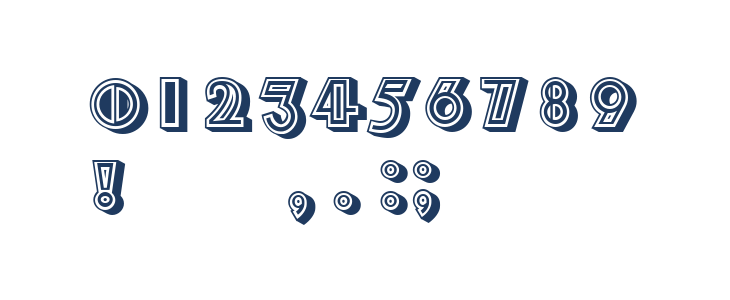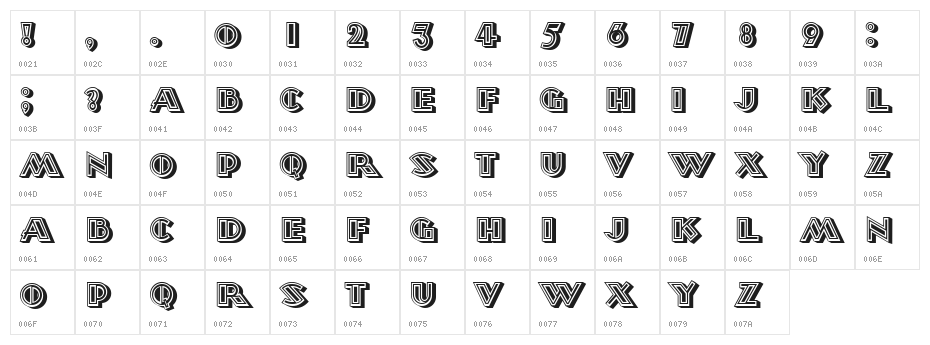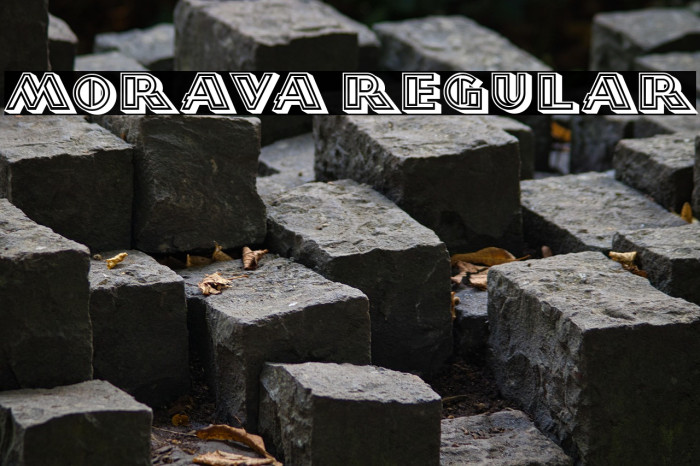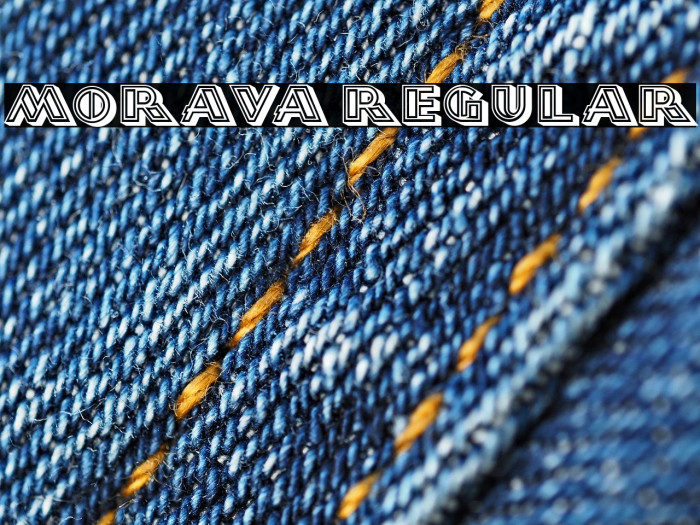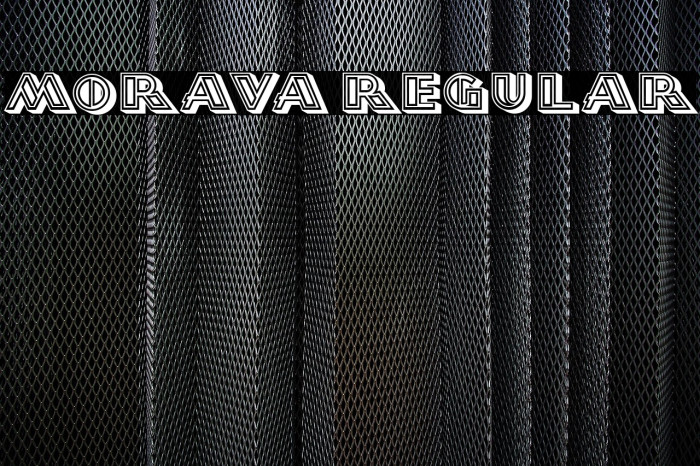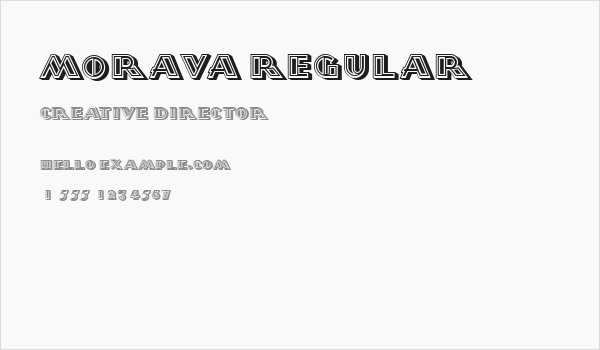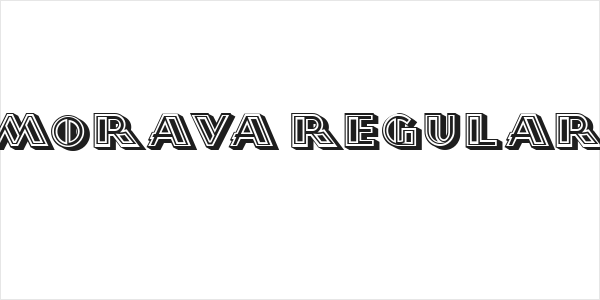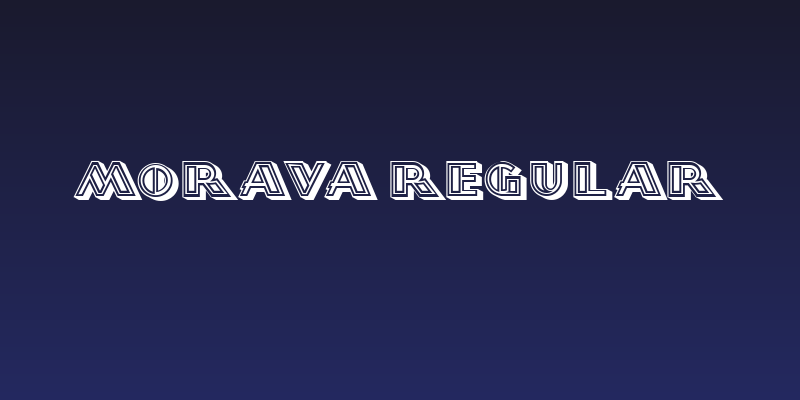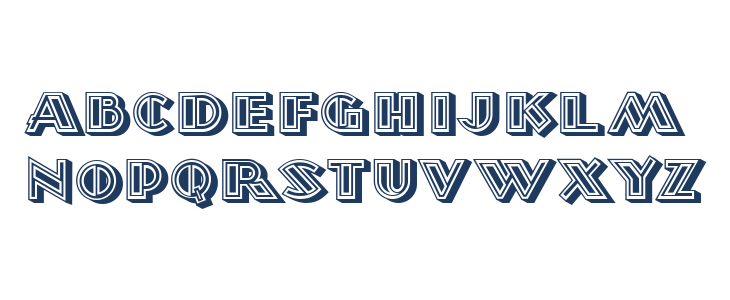
Morava Regular Font
Morava Regular Description
This font features a bold, decorative style with a strong 3D effect, characterized by thick outlines and shadowing that create a sense of depth. The uppercase letters are designed with geometric precision, giving them a modern and dynamic appearance. The numerals and special characters maintain the same bold and shadowed aesthetic, ensuring consistency across all characters. The font's unique style makes it stand out, ideal for eye-catching designs.